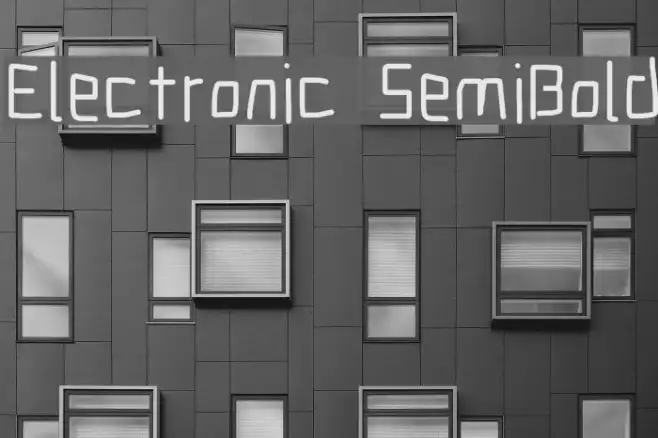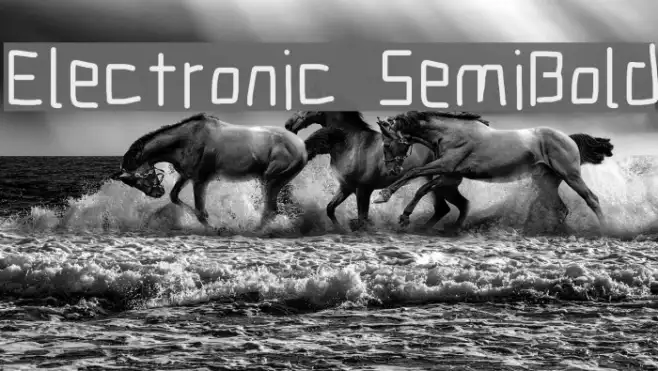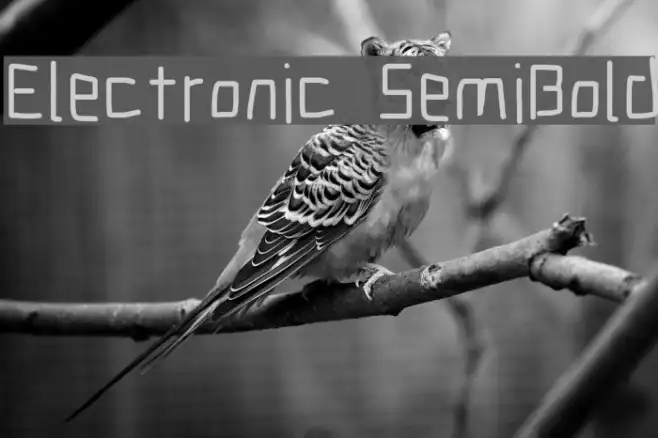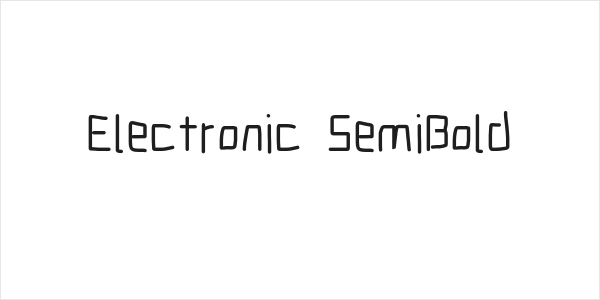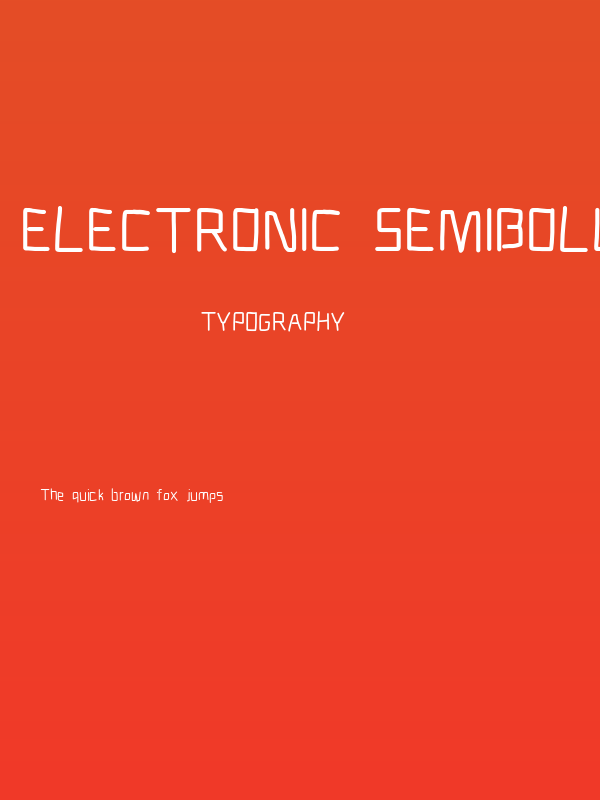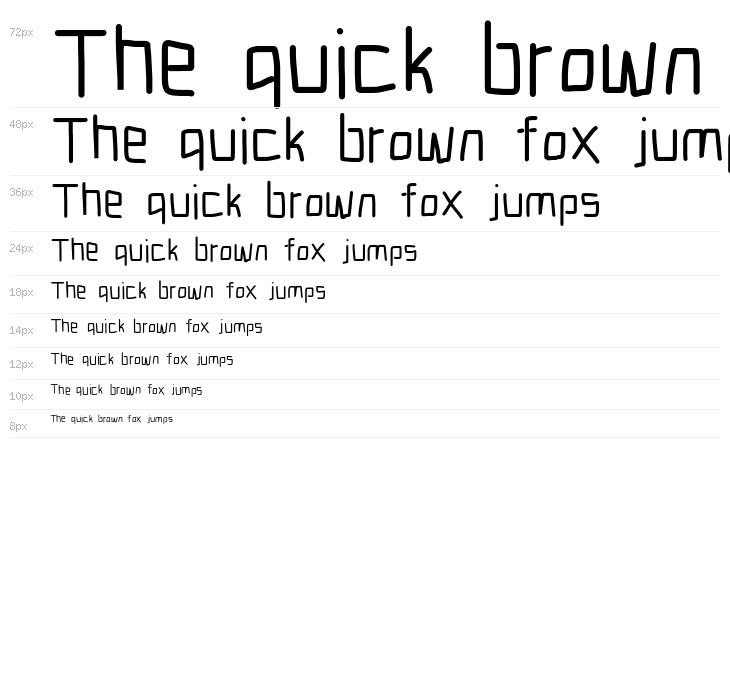
Electronic SemiBold Font
Electronic SemiBold Description
This font features a geometric and digital-inspired design with a semi-bold weight. The characters are constructed with straight lines and rounded corners, giving it a modern and technical appearance. Uppercase and lowercase letters maintain a consistent height, while numerals and special characters follow the same structural style. The font's uniformity and clarity make it suitable for digital displays and interfaces, where readability and a futuristic aesthetic are desired. Its clean lines and minimalistic approach contribute to a sleek and contemporary look.
| Overall Style | Modern, Technical |
| Use Case | Digital displays, Interfaces, Tech branding |
| Proposed Projects | Ideal for digital interfaces, tech branding, video game design, and futuristic-themed projects. |